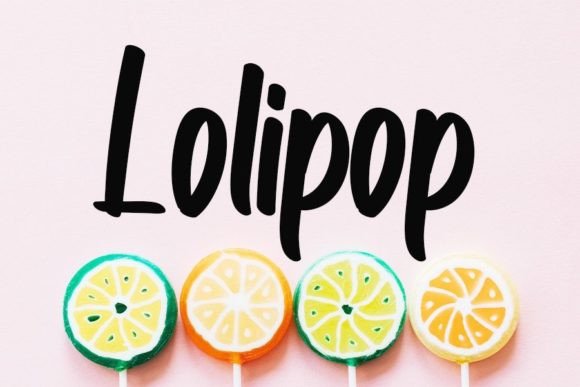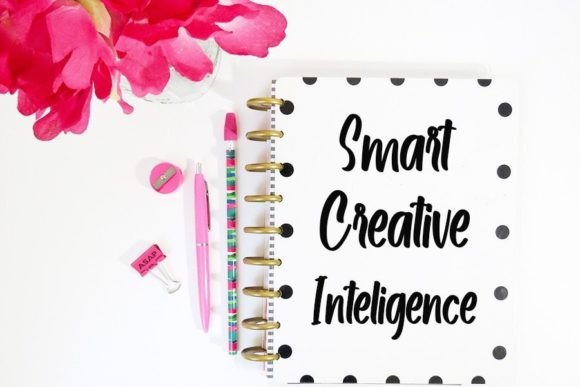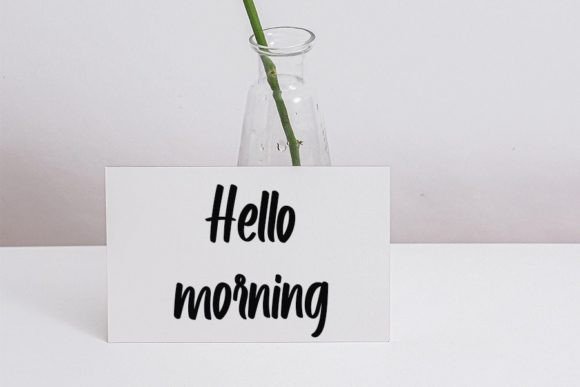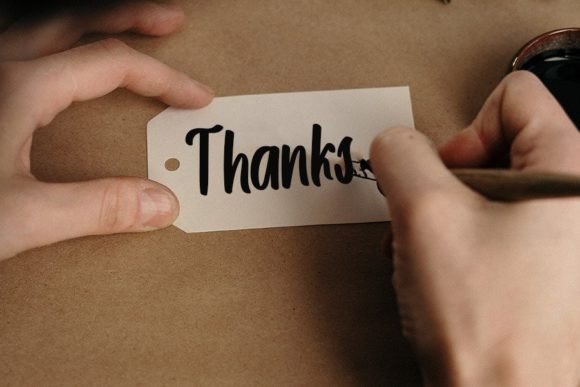
Paradise Font
About Paradise Font
“Paradise” sounds like a neat and beautiful handwritten font with an elegant touch, offering a distinct and timeless style. Fonts with such qualities are versatile and can be applied to a variety of creative projects.
The description suggests that “Paradise” has a distinct and timeless style, making it suitable for different design contexts. Whether you’re working on logos, invitations, or other design elements, this font appears poised to contribute to creating spectacular and visually appealing designs.
Fonts with an elegant touch often add a sense of sophistication and refinement to projects. Consider incorporating “Paradise” into your favorite projects, and let its distinct and timeless style enhance the overall aesthetic.